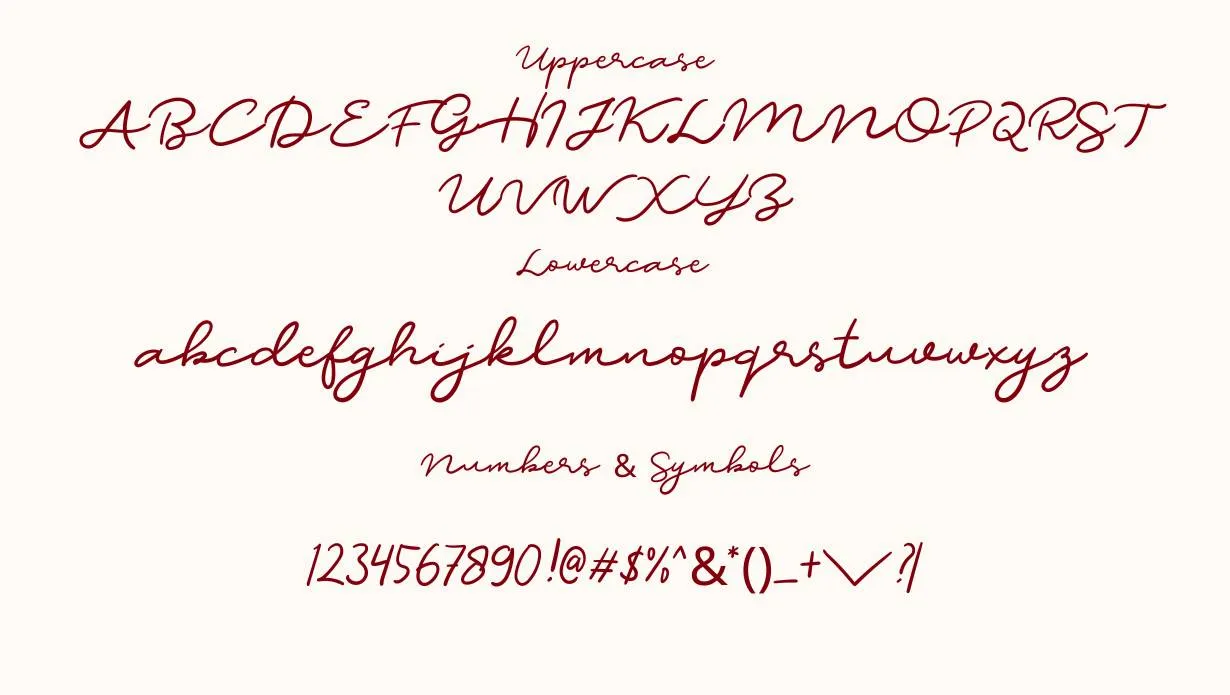
The Dear Jane font carries a vintage and romantic essence with its delicate and nostalgic design. Often employed in retro-themed projects such as posters, branding, or designs aiming to evoke a classic and old-world charm, this font creates a timeless and romantic atmosphere in text.
Its charm lies in its ability to evoke a sense of nostalgia and bring a classic touch to various designs.
| Name | Dear Jane Font |
| Designer | Letterhend Studio |